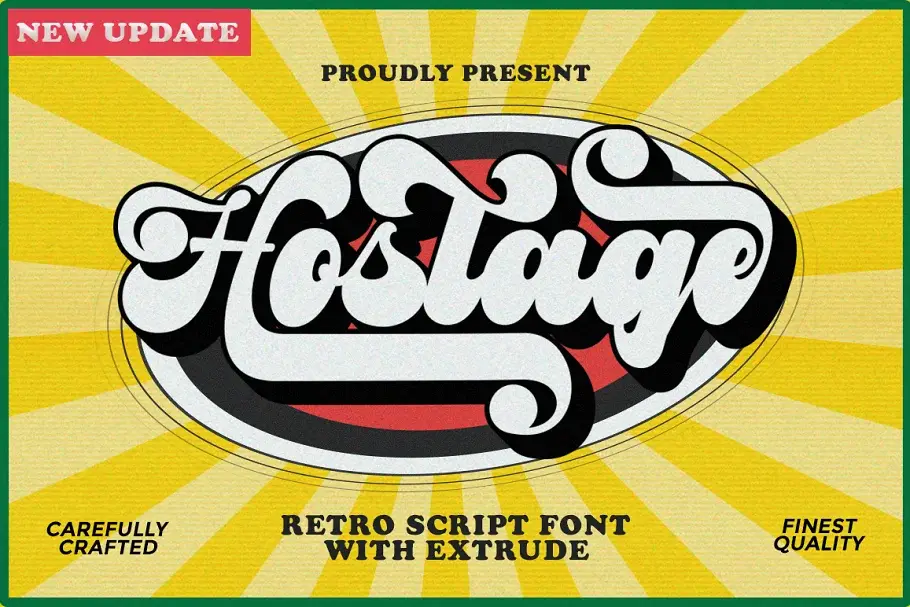
Step into a world of vintage charm with Hostage, a captivating free retro script font designed to transport you back to the groovy vibes of the 60s. This typeface doesn’t just reminisce; it brings it to life with its bold strokes and timeless appeal.
Hostage doesn’t stop at just being a font – it’s a versatile tool for creating that perfect retro effect. With its extrude version, crafting stunning retro-style fonts becomes a breeze. Whether you’re working on a logo, invitations, labels, magazines, or any other formal form, Hostage is tailor-made for the job.
- Uppercase & lowercase letters
- Numbers and punctuation
- Multilingual support
- Ligatures, alternates, and swashes
This font is not just a typeface; it’s a creative companion for various projects, adding a touch of vintage elegance to your designs. Ideal for applications in logo design, invitations, labels, magazines, books, greeting or wedding cards, packaging, fashion, makeup, stationery, novels, labels, and any advertising purpose you can imagine.
Hostage Free Retro Script Font